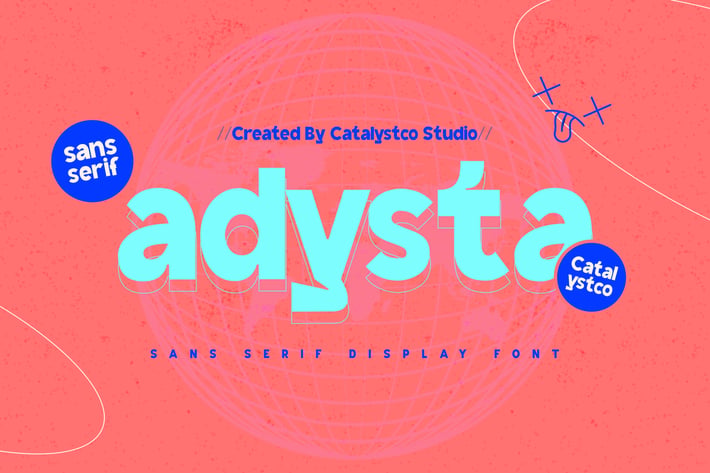
Adysta Sans Serif Display Font
Adysta is a bold and playful sans serif display font with a clean geometric structure and vibrant visual personality. Its thick rounded strokes create a modern yet friendly impression, perfect for eye-catching branding and energetic creative projects. Designed for clarity and impact, Adysta performs well in large-scale compositions—posters, logos, packaging, headlines, and digital visuals. With complete uppercase, lowercase, numerals, and symbols, this font offers strong versatility for modern design needs.
Adysta is suitable for branding, logo design, posters, youthful marketing visuals, packaging, social media graphics, modern editorial layouts, tech-inspired designs, geometric-themed artworks, merchandise, and creative digital content requiring a bold and playful sans serif look.
Ligatures & Alternate
Numeral & Punctuations